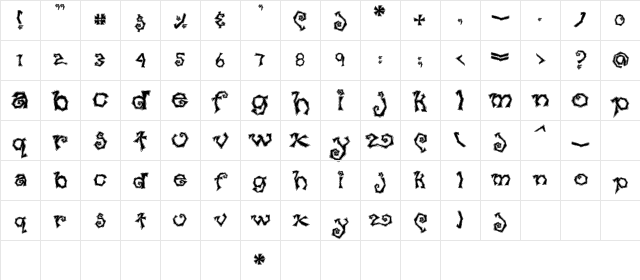
Lindsay Noisemaker Regular
Design Context for Lindsay Noisemaker
Lindsay Noisemaker is a composed and adaptable typeface that performs quietly and consistently across a wide range of design contexts.
Pro Tip: Use Lindsay Noisemaker in both headline and body roles to test its range before committing to a single application.